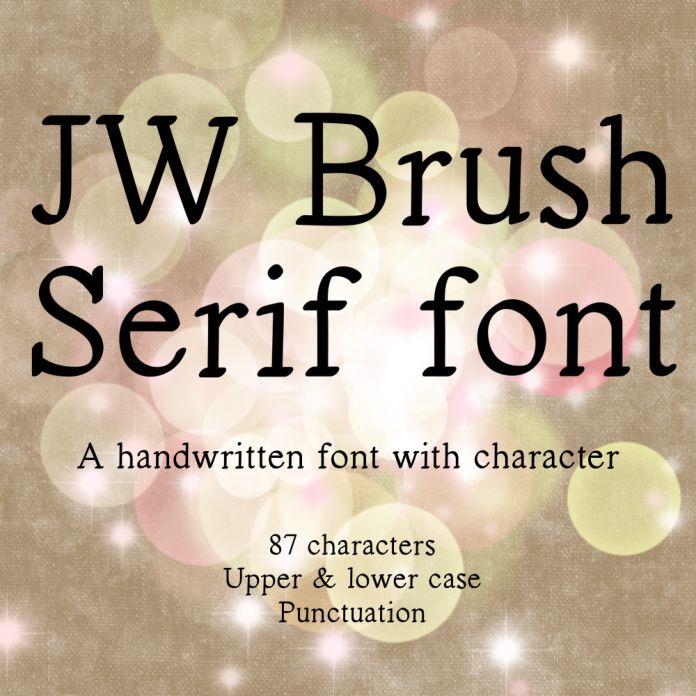
A quirky hand drawn serif font perfect for use in greeting cards and craft projects. Works equally well as a display font and for smaller copy, it’s designed to be legible at many different sizes.